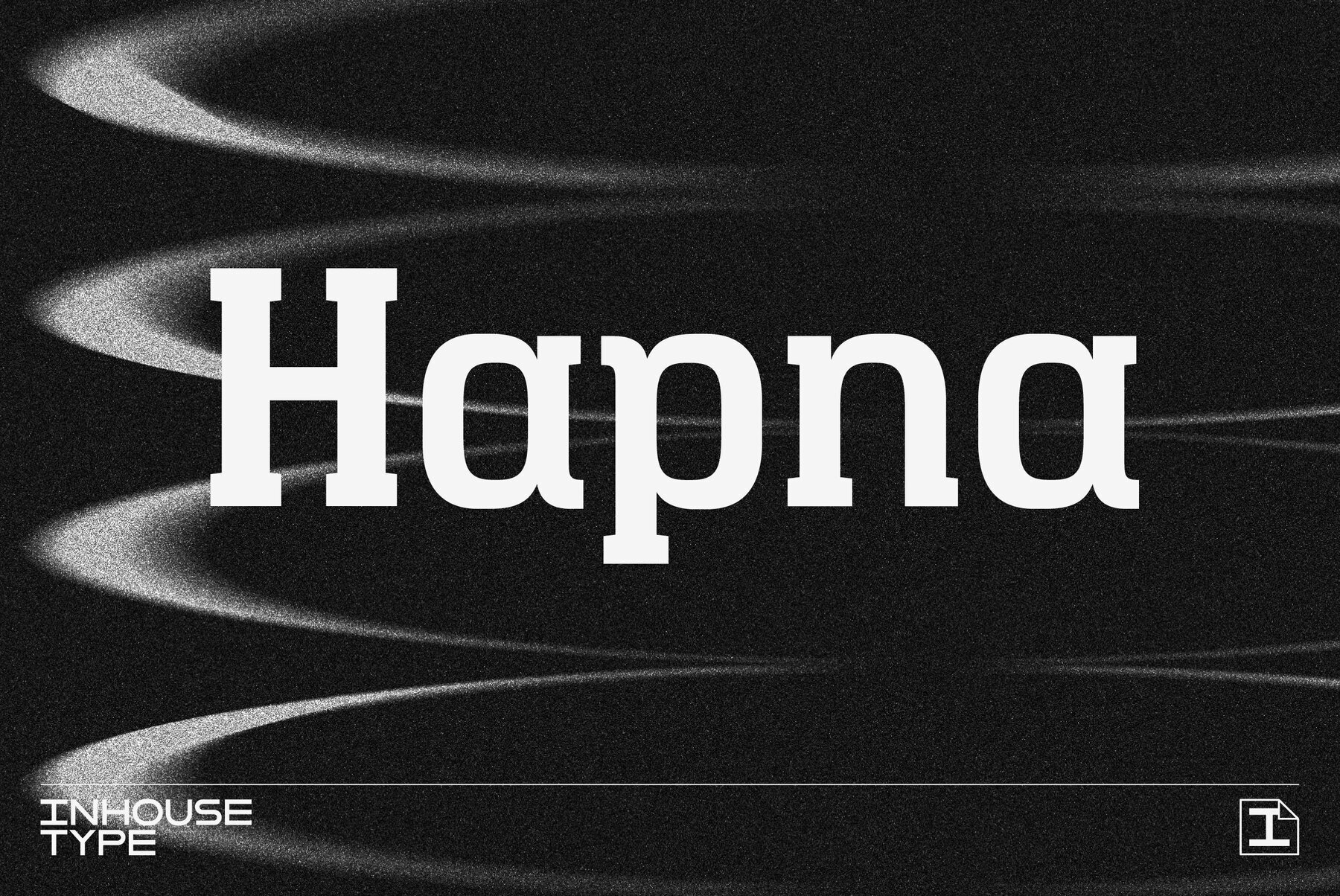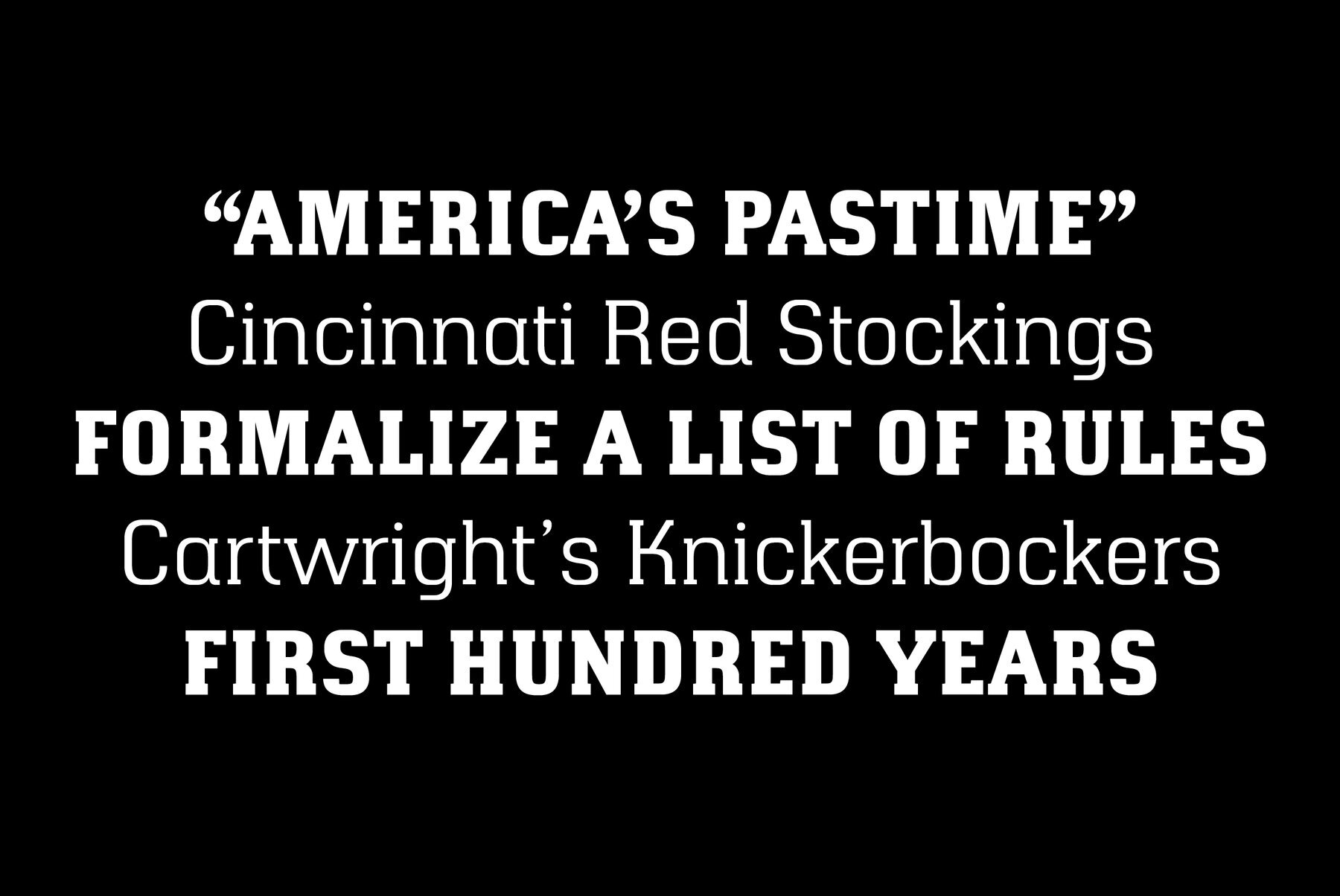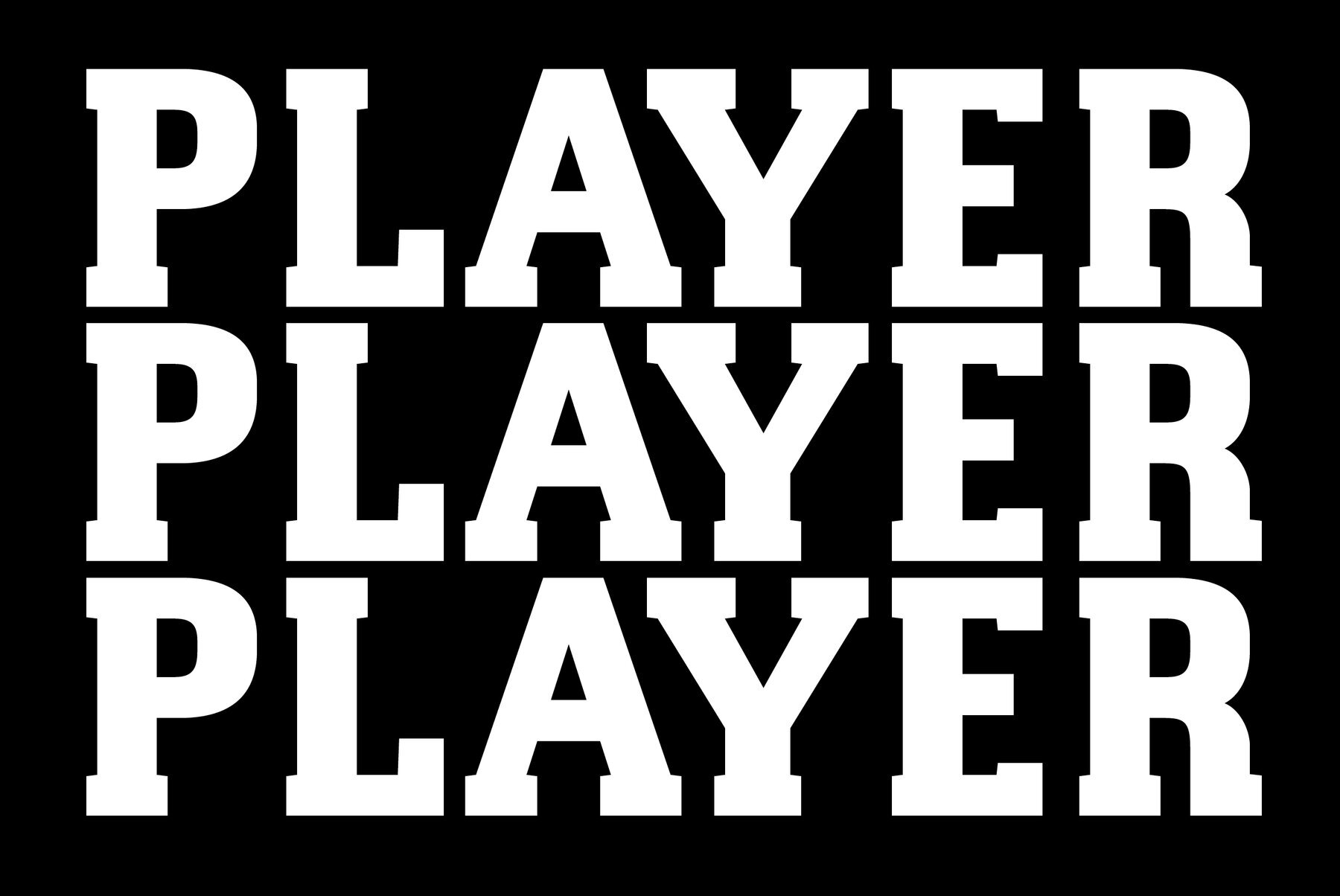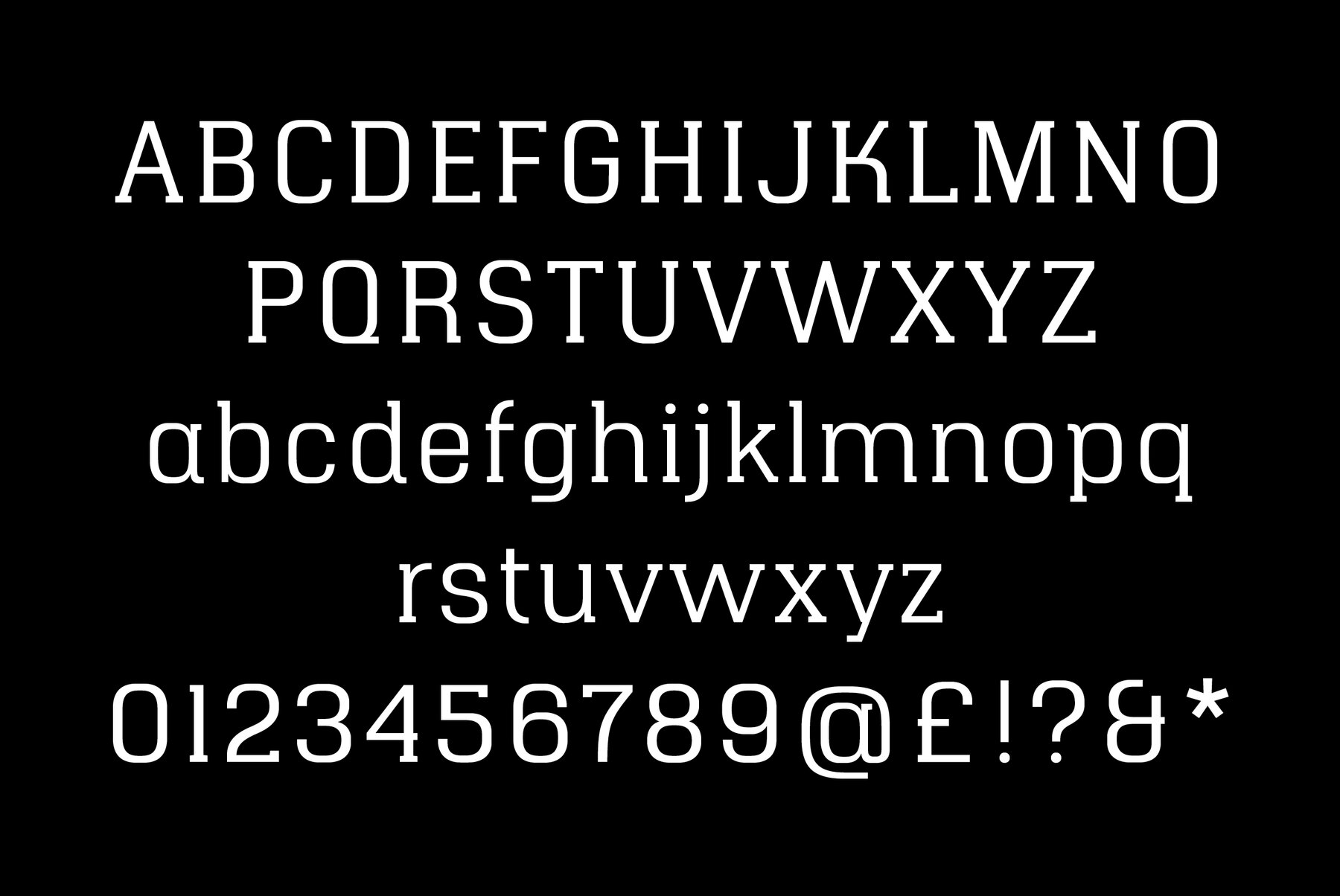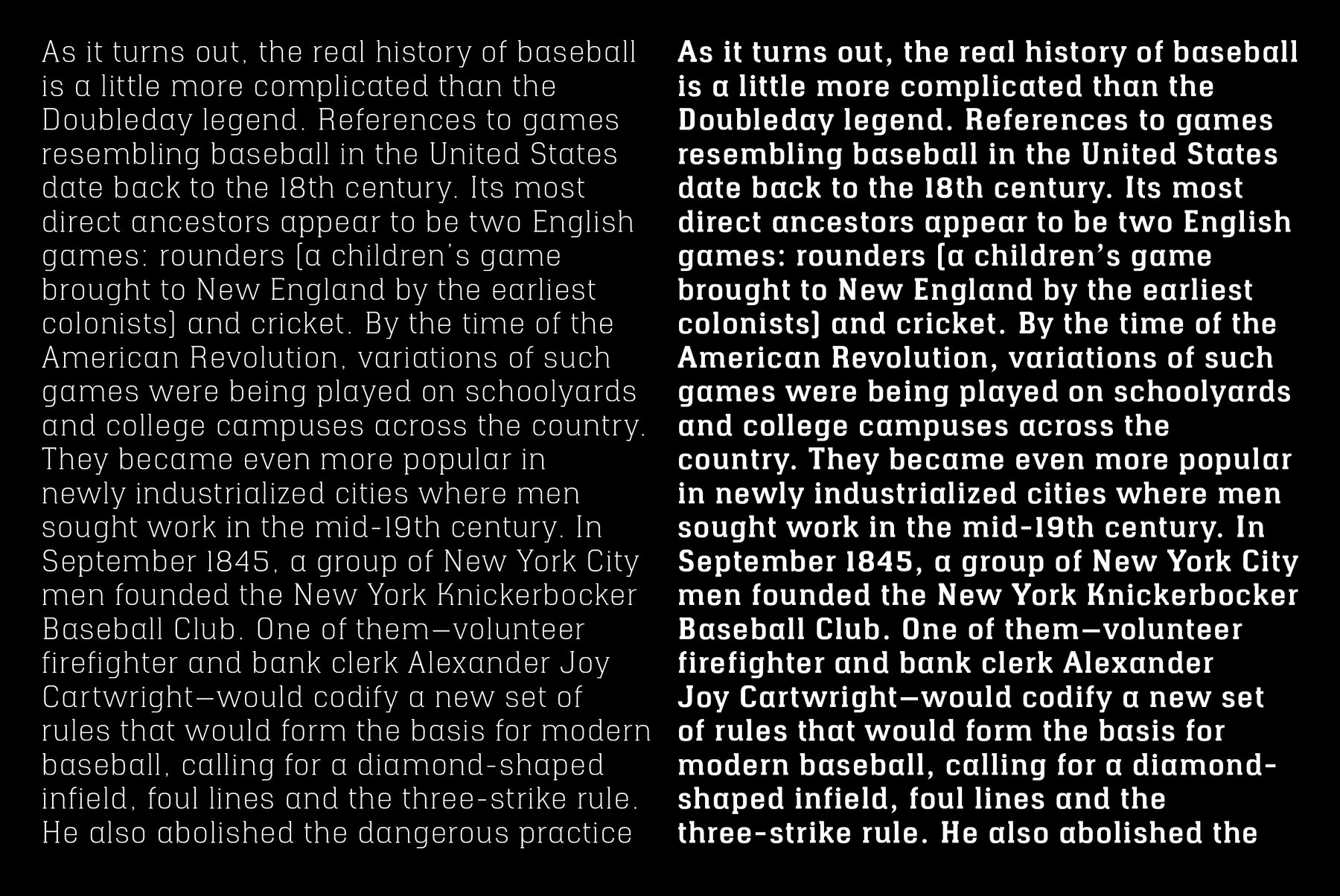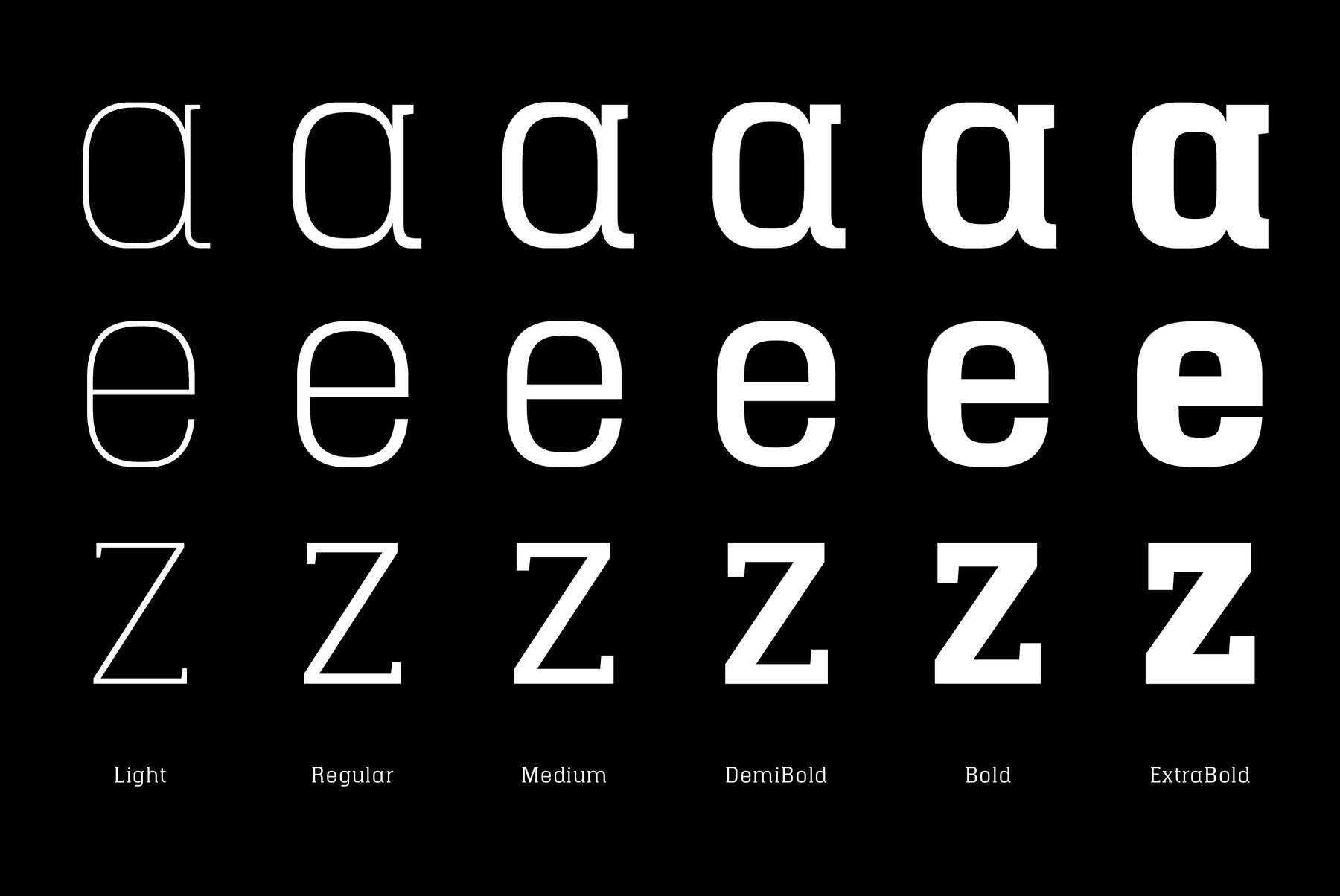
Hapna Font
Hapna is a geometric slab serif designed as an alternative to other slab style fonts available on the market. Hapna was inspired by the baseball culture and the graphic language of the early 1950s. Details include 6 weights, 406 characters and OpenType features.